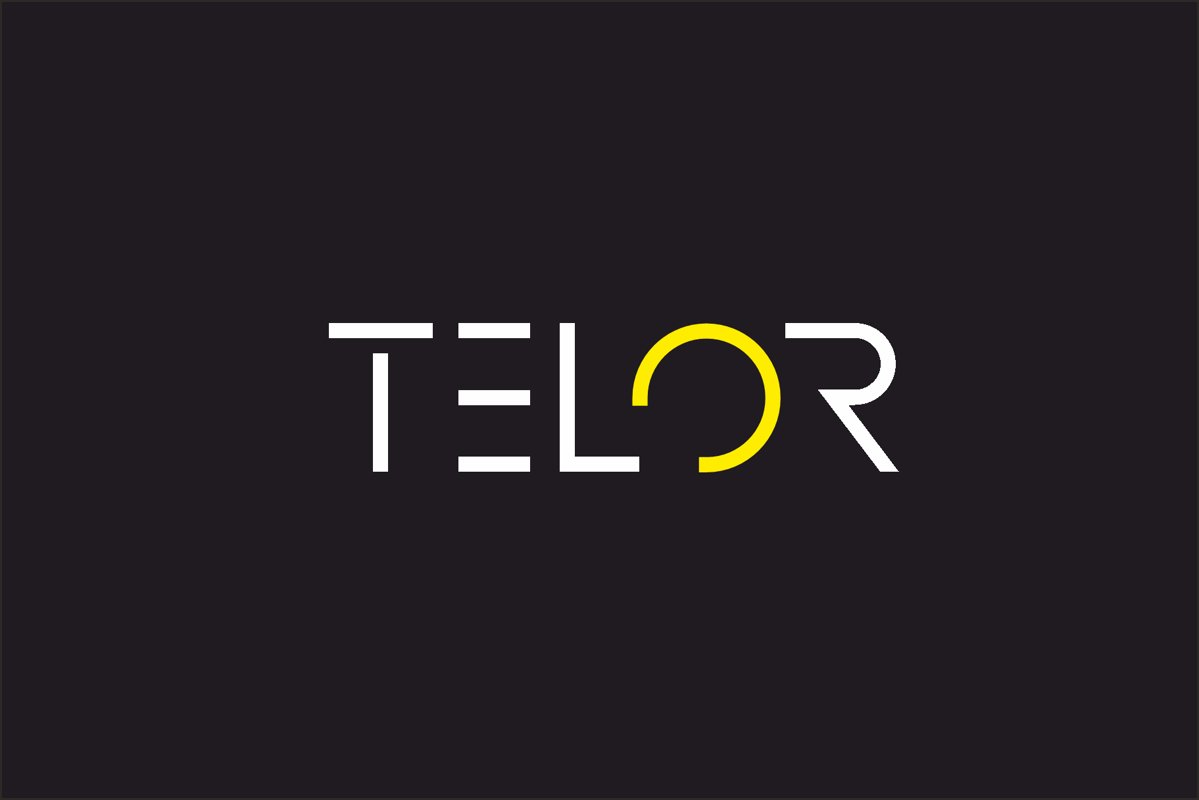
Telor
minimalis rounded typeface  it’s perfect for namecard, poster, logo, magazine, cover, banner, tshirt and headers, logo and other any business related.